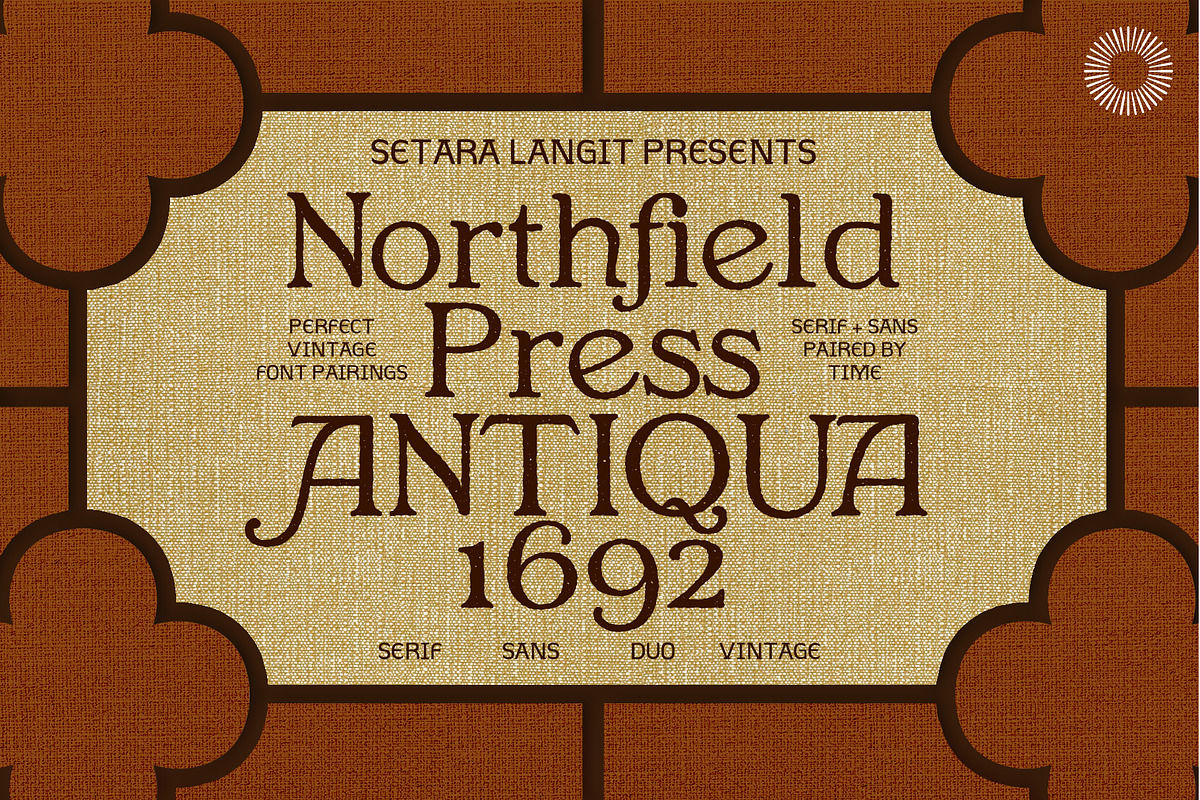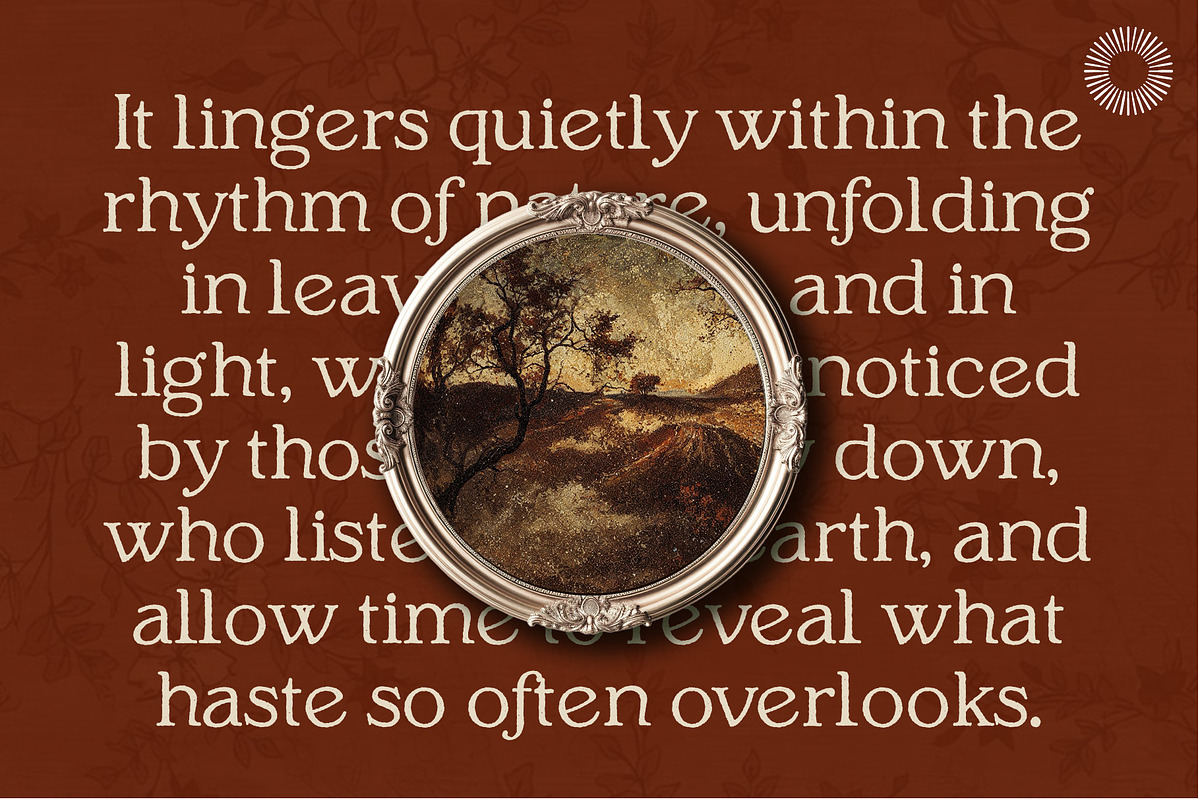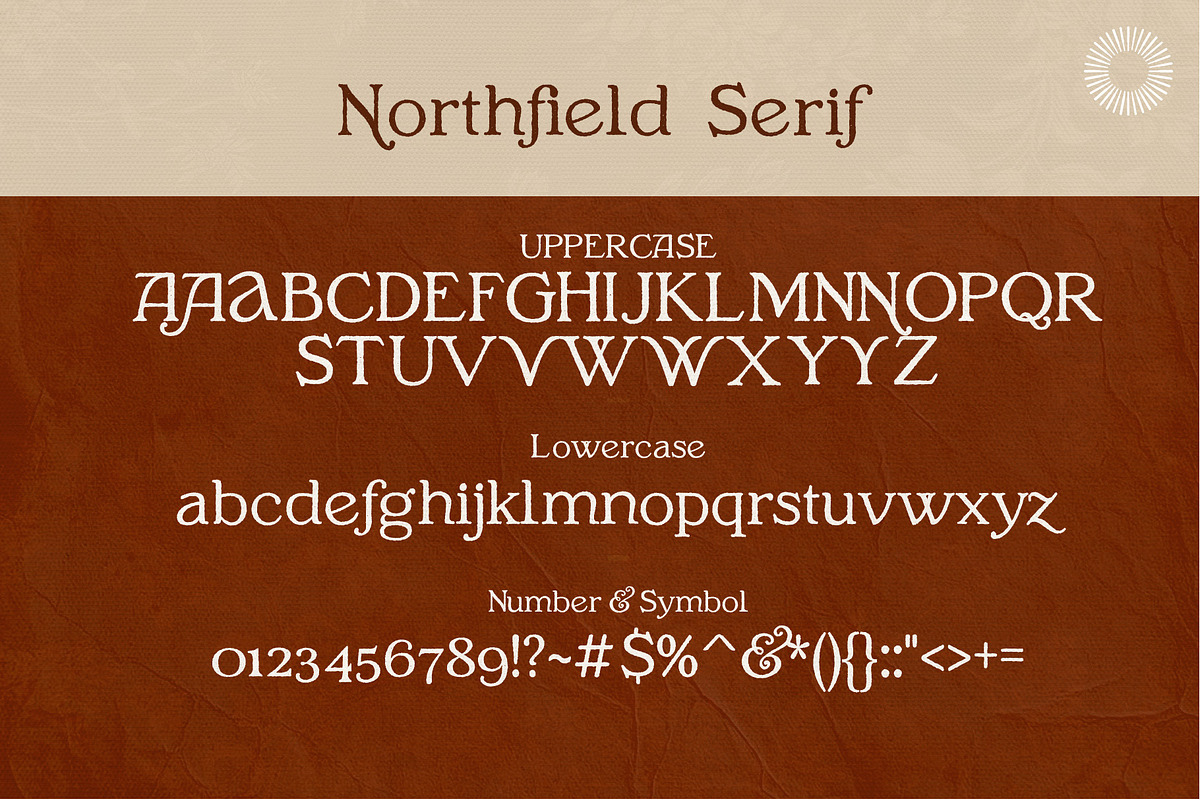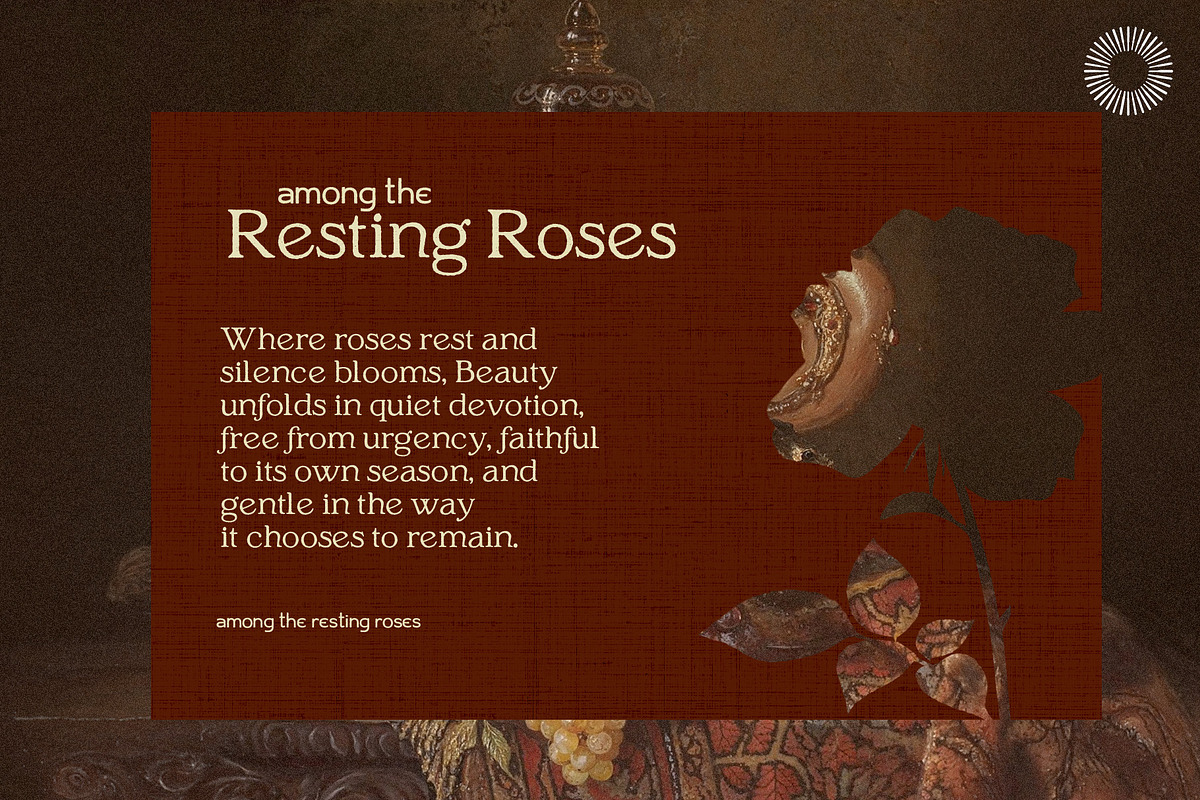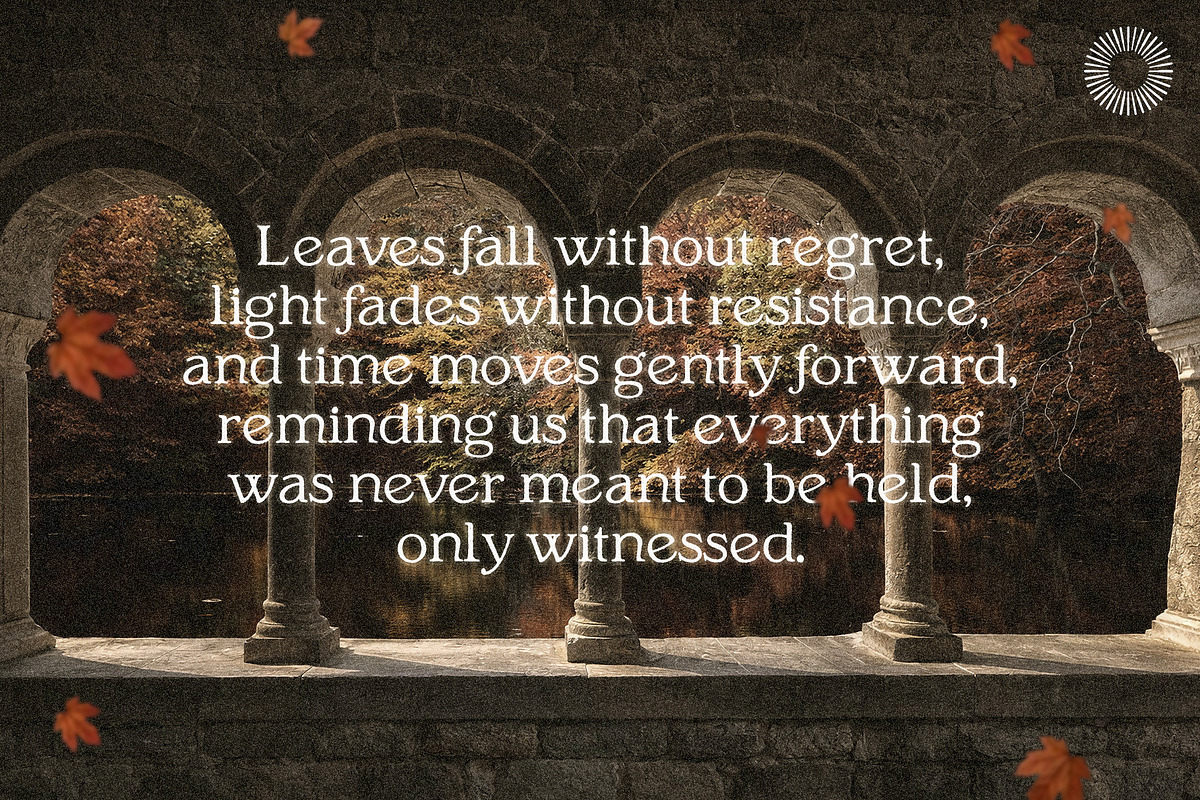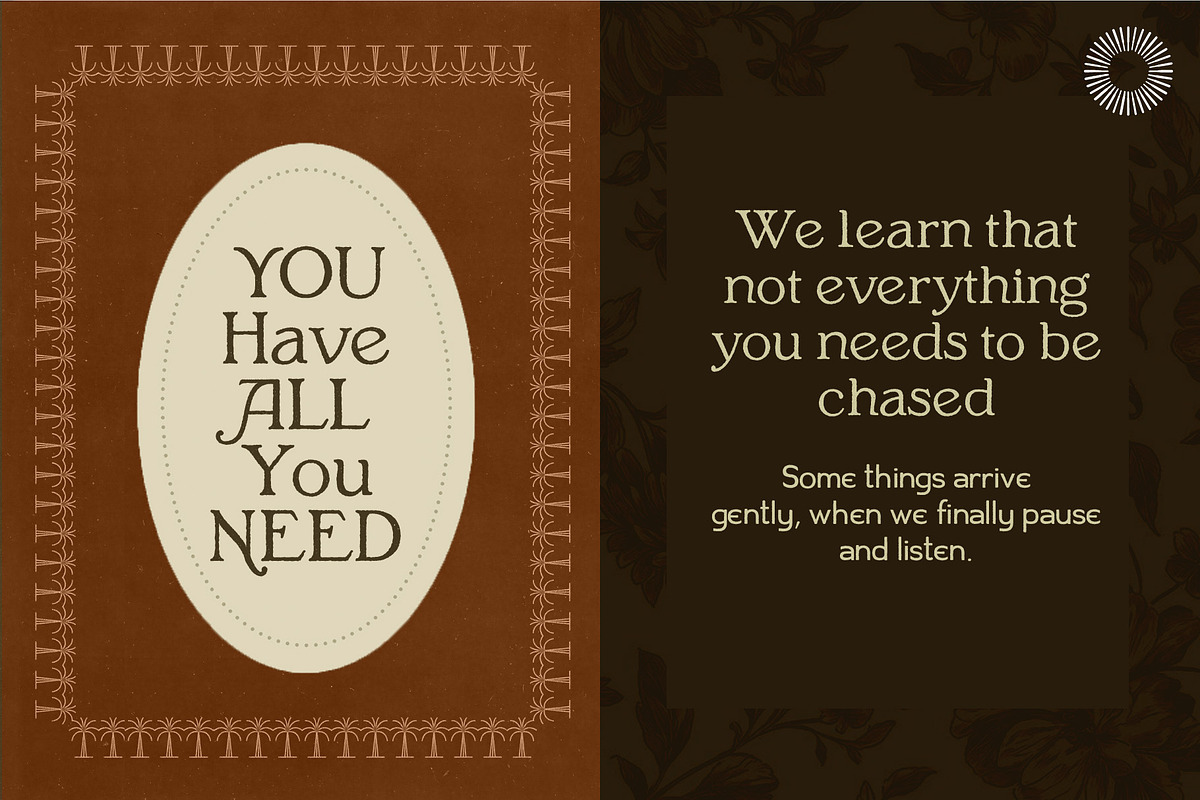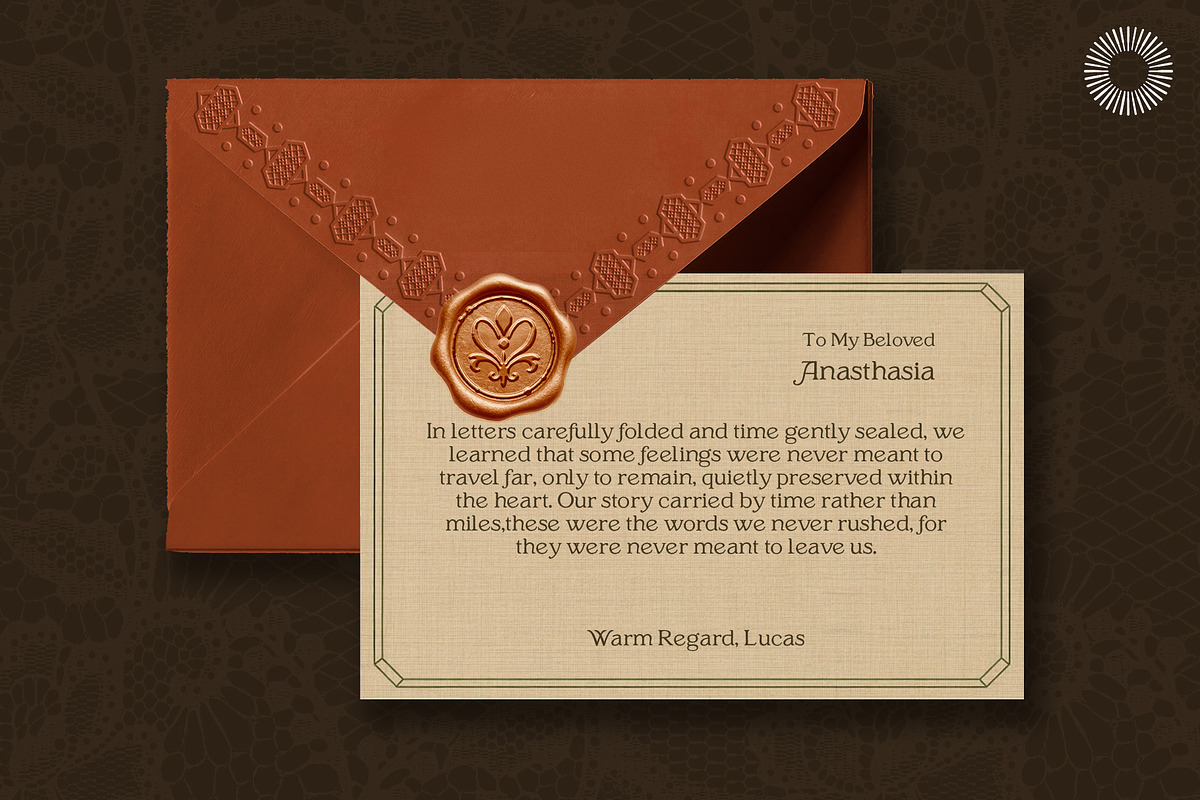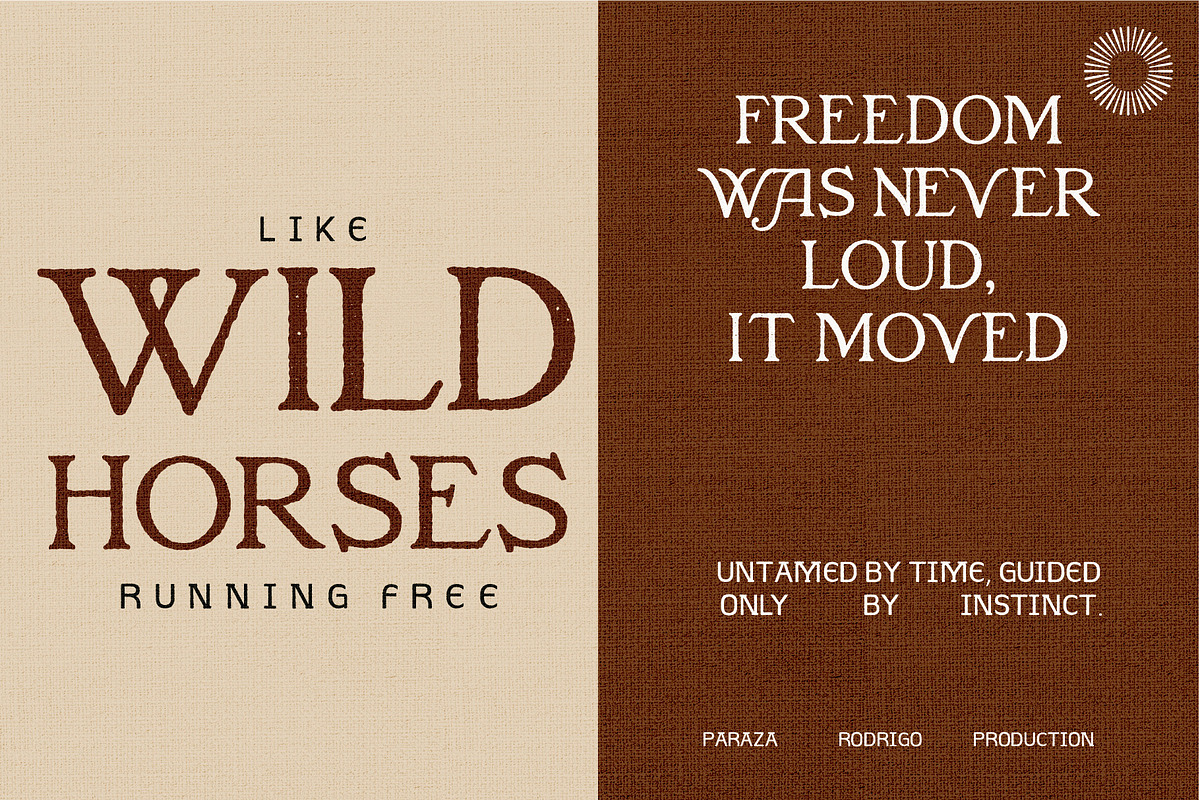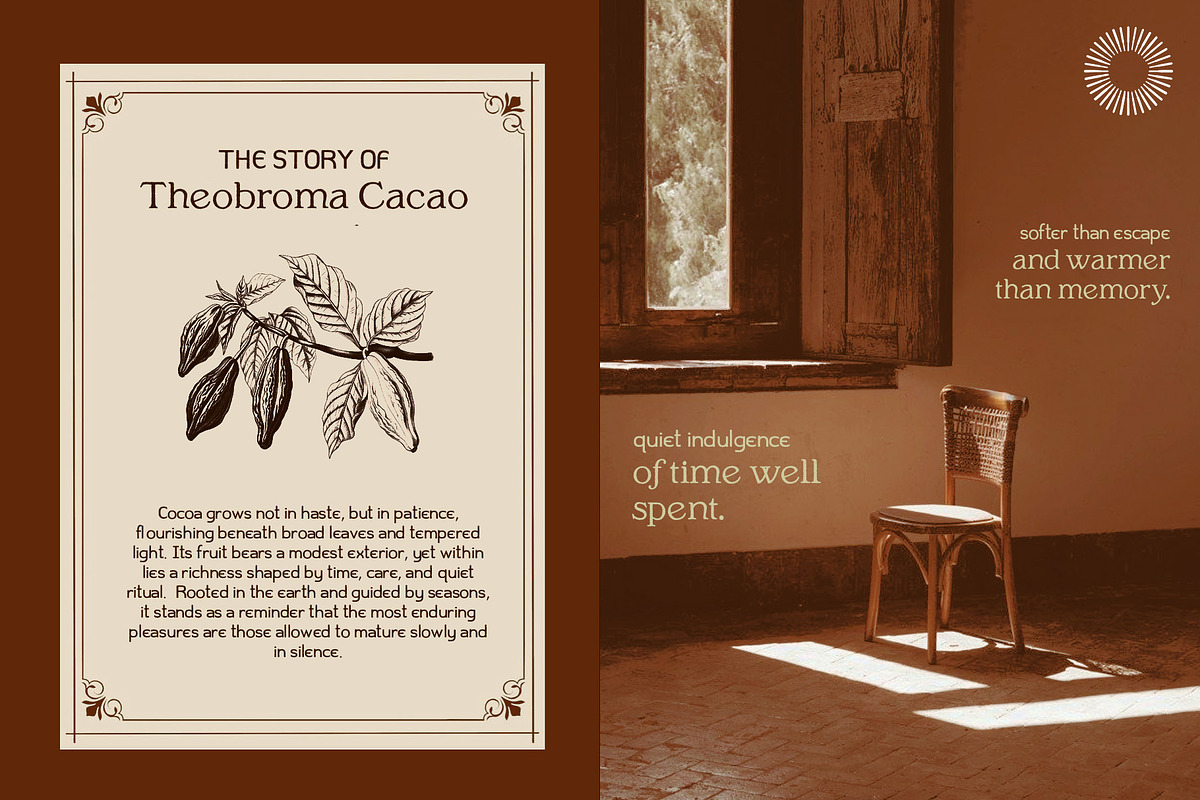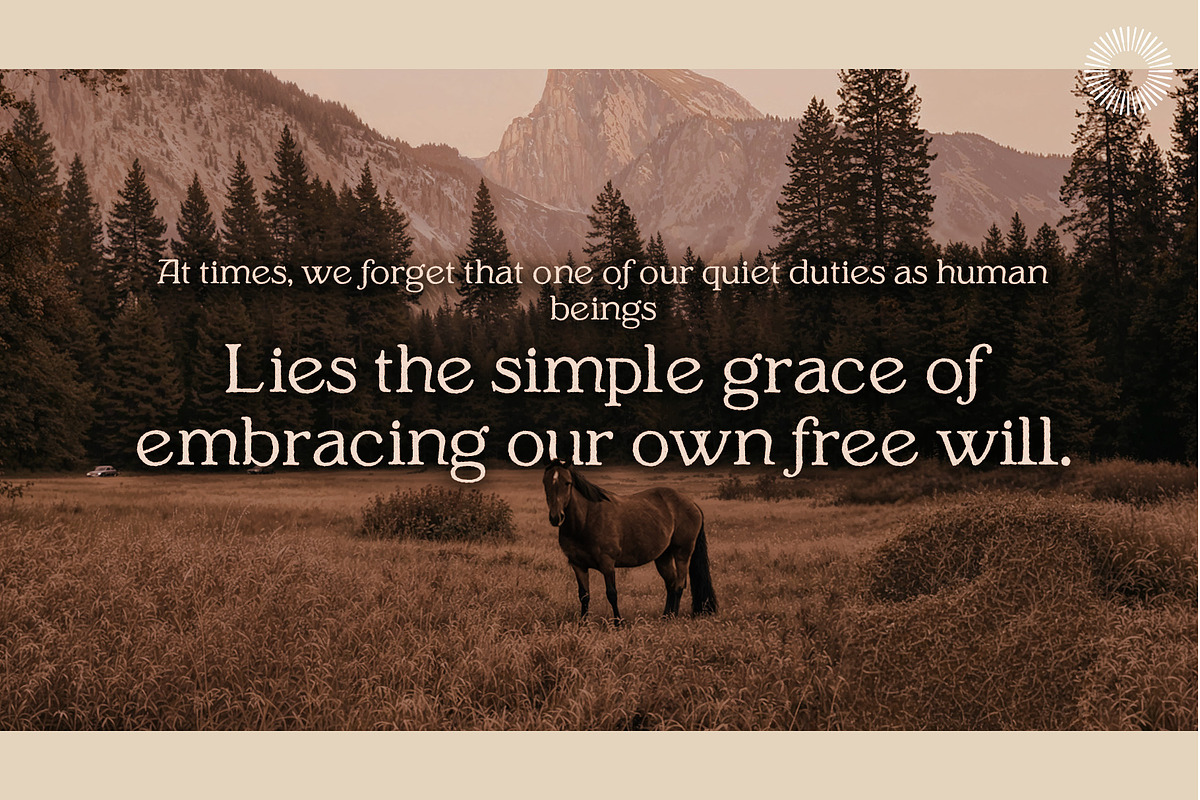
Northfield - Pressed Heritage
Northfield is a vintage-inspired serif + sans font duo designed for designers who need classic character with practical usability. Inspired by old press typography, traditional signage, and mid-century print design, Northfield brings warmth, clarity, and a handcrafted feel to modern layouts. The serif style features soft curves, rounded terminals, and sturdy proportions that reflect the texture and rhythm of printed type. It feels friendly, grounded, and confident, ideal for headlines and display use. The sans style is clean and balanced, created to pair naturally with the serif for subheadings, captions, and body text. Together, they form a complete typographic system that works across posters, branding, packaging, editorial layouts, and signage.
- Numerals & punctuation
- Multilingual Latin support
- Alternates for selected characters
Ideal For
- Vintage & retro posters
- Branding & logo design
- Packaging & labels
- Editorial & print layouts
- Signage and display typography
Northfield is designed to feel printed, warm, and timeless—without being decorative or difficult to use. It’s a versatile vintage font duo built for real design work, not just aesthetic experimentation.